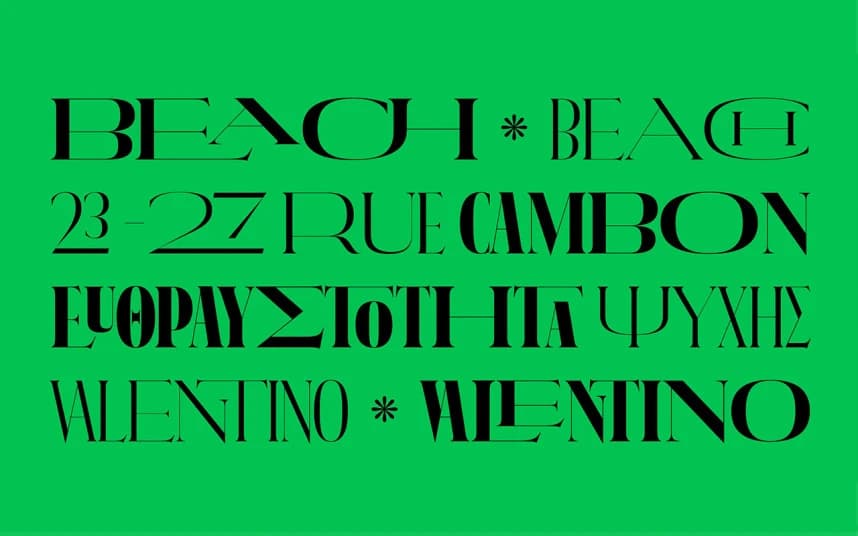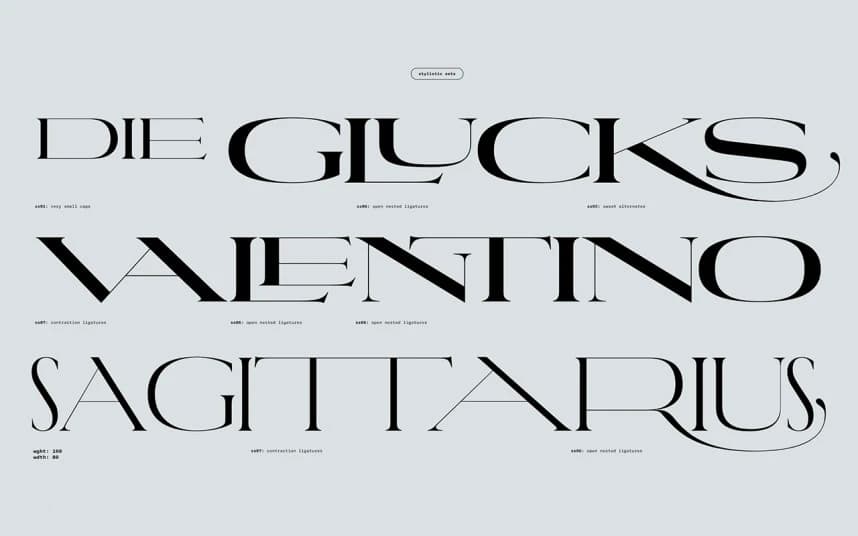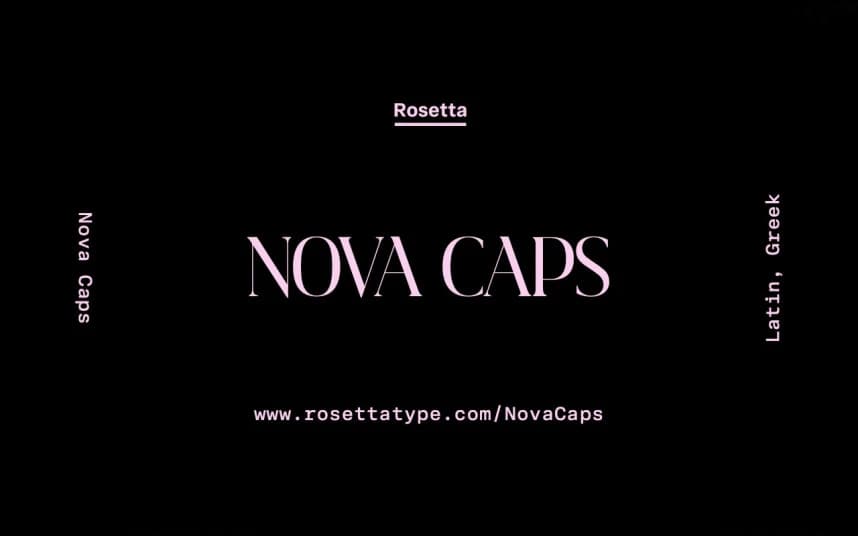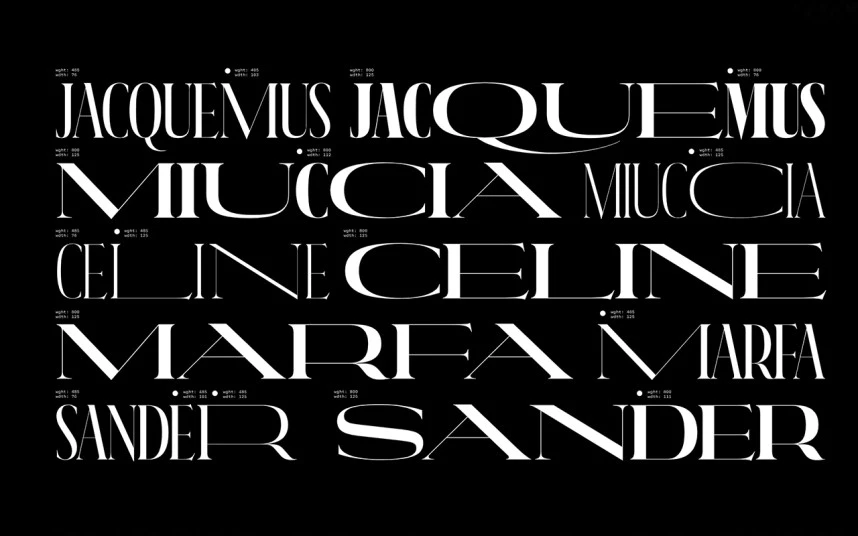
NovaCaps Font Family
NovaCaps Font Family, a fresh new display type family from Tania Chacana. The family takes its cues from the old world and the new, drawing from Roman epigraphs in the museums of Rome and Lyon and from architectural Art-Deco inscriptions in Buenos Aires.